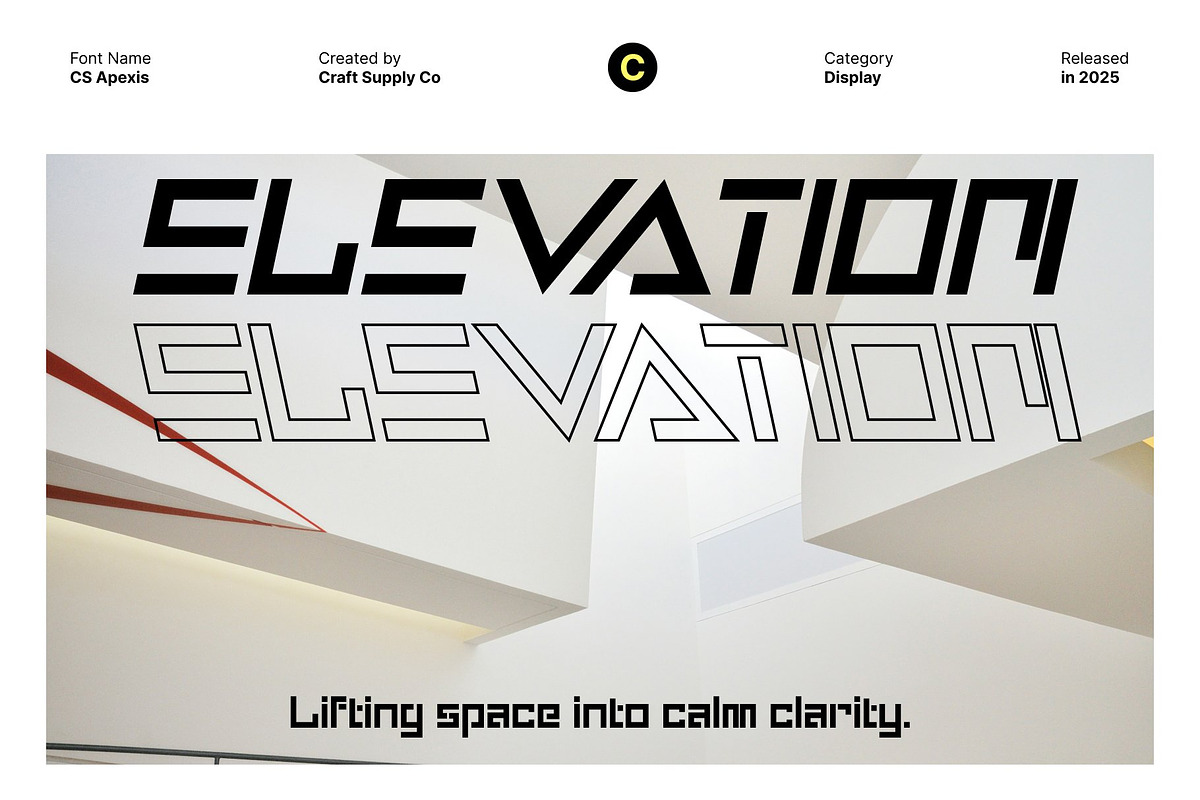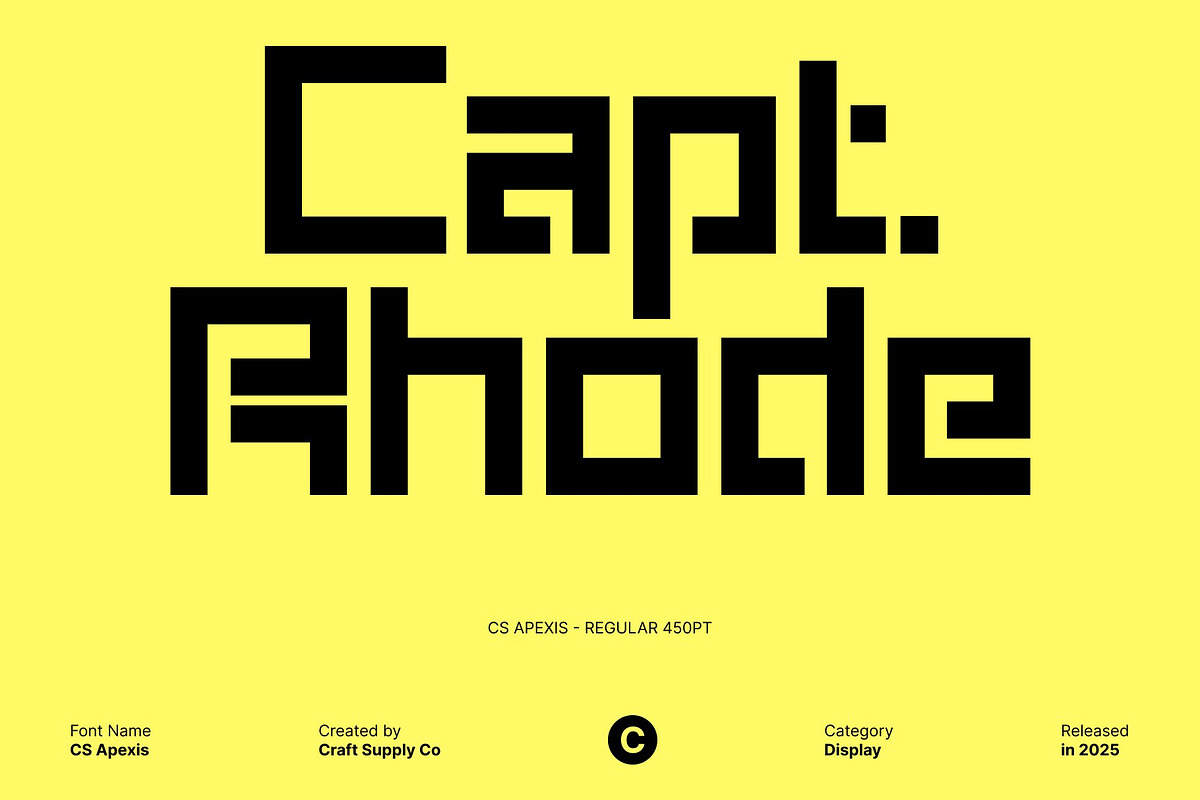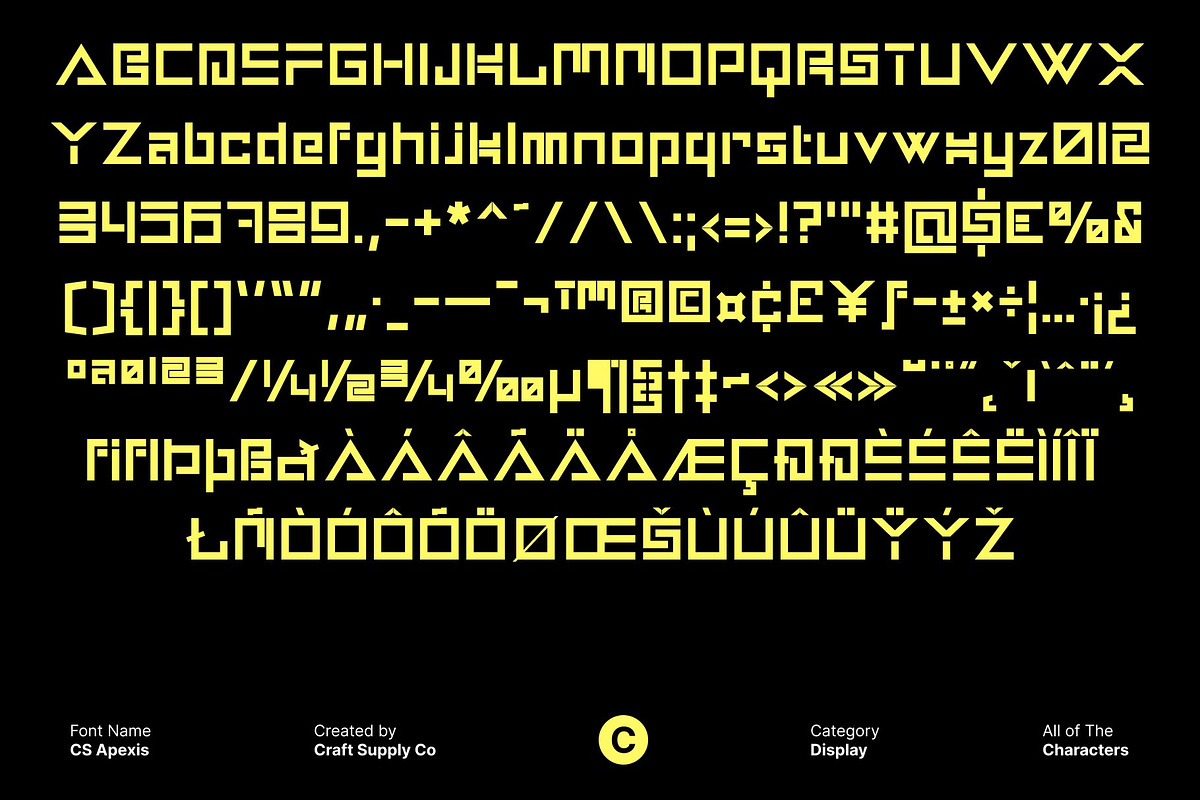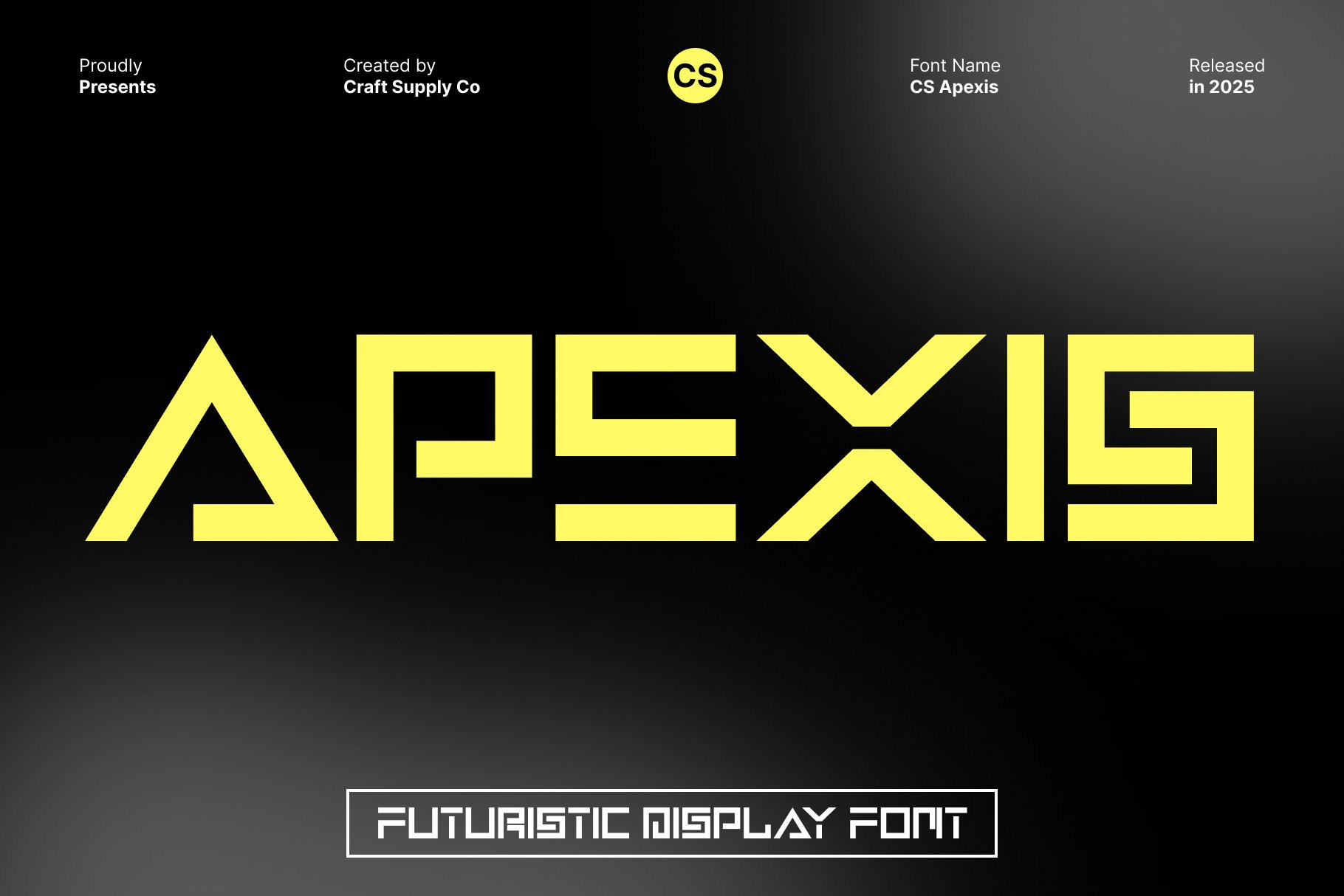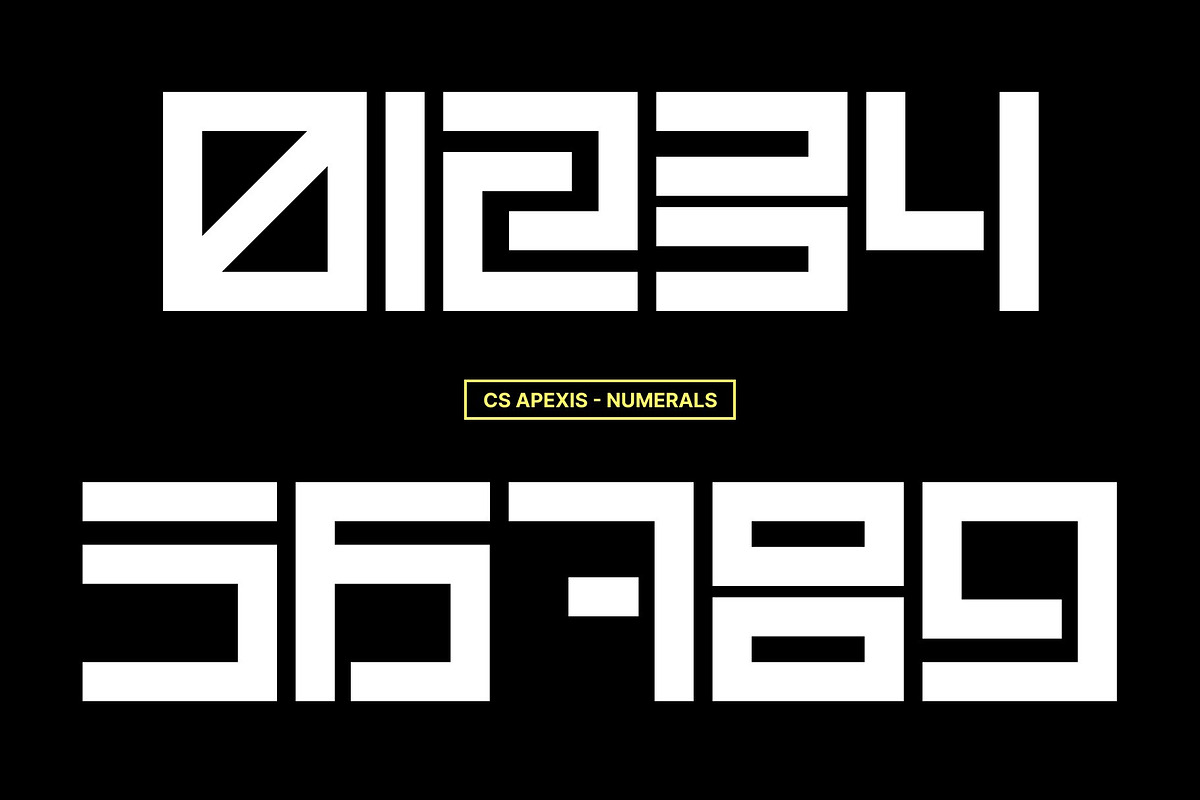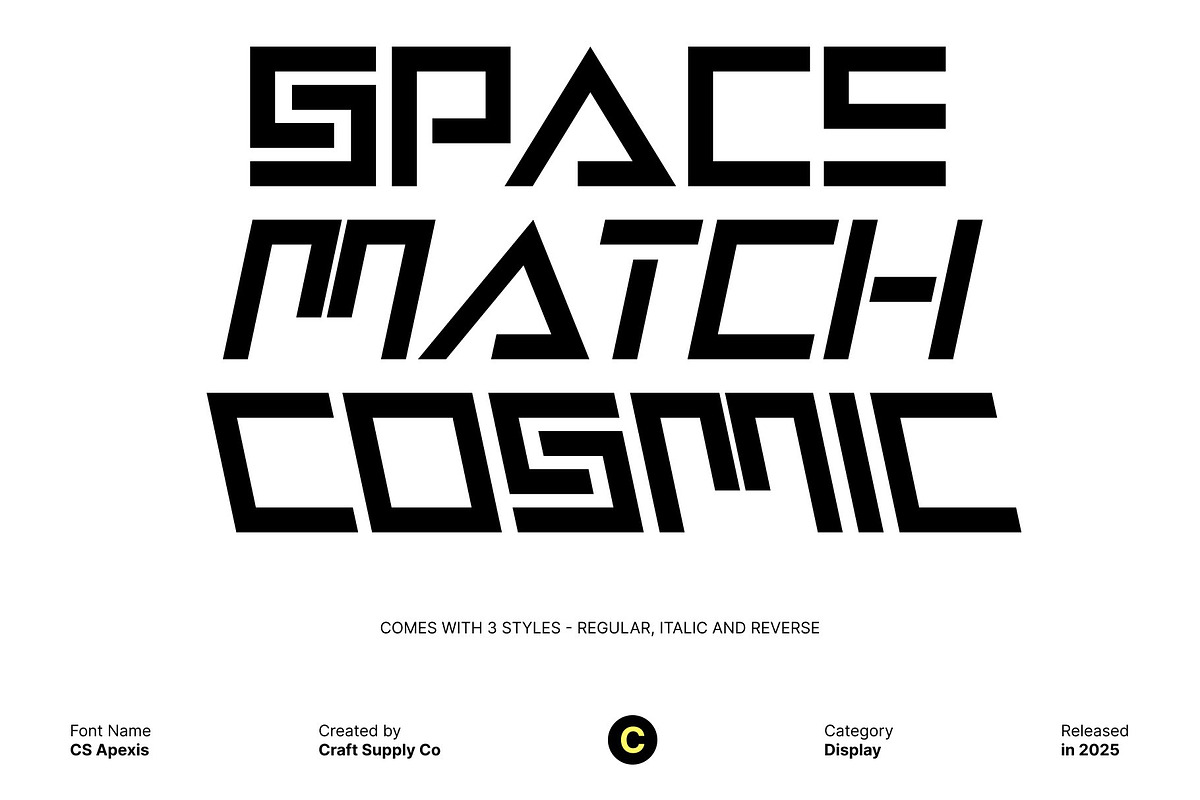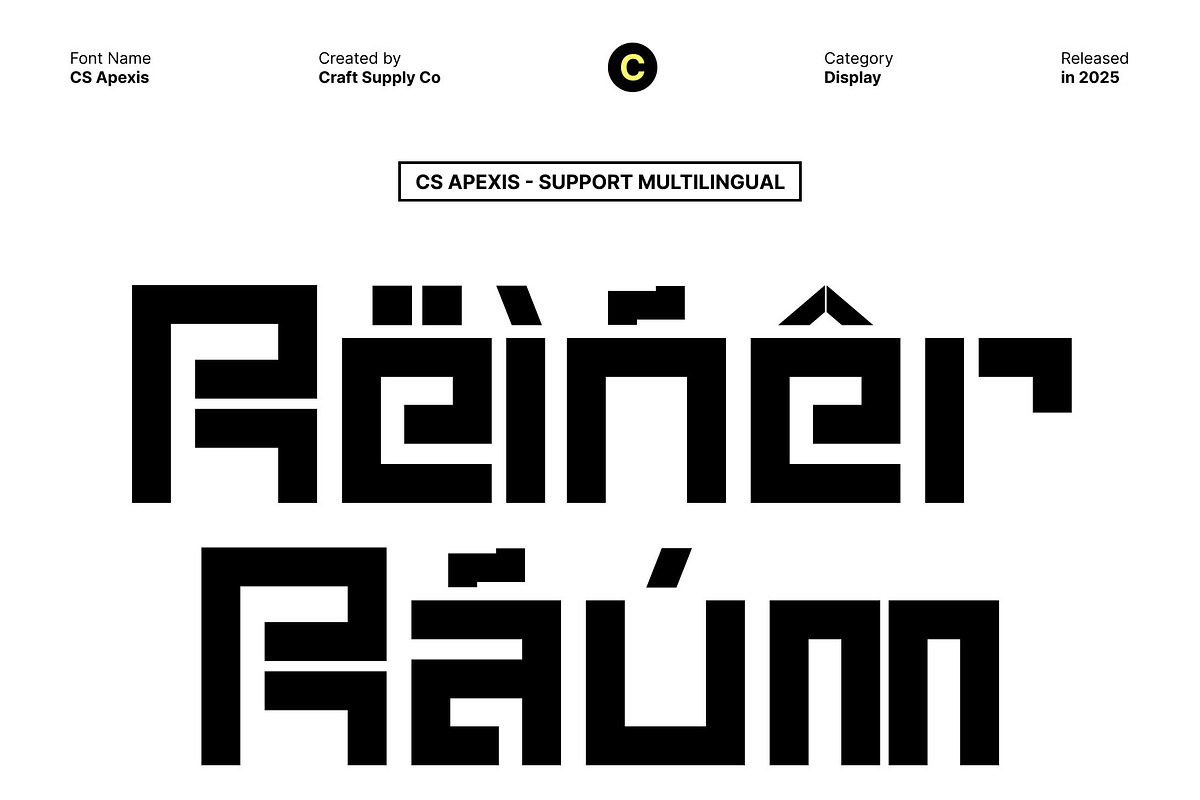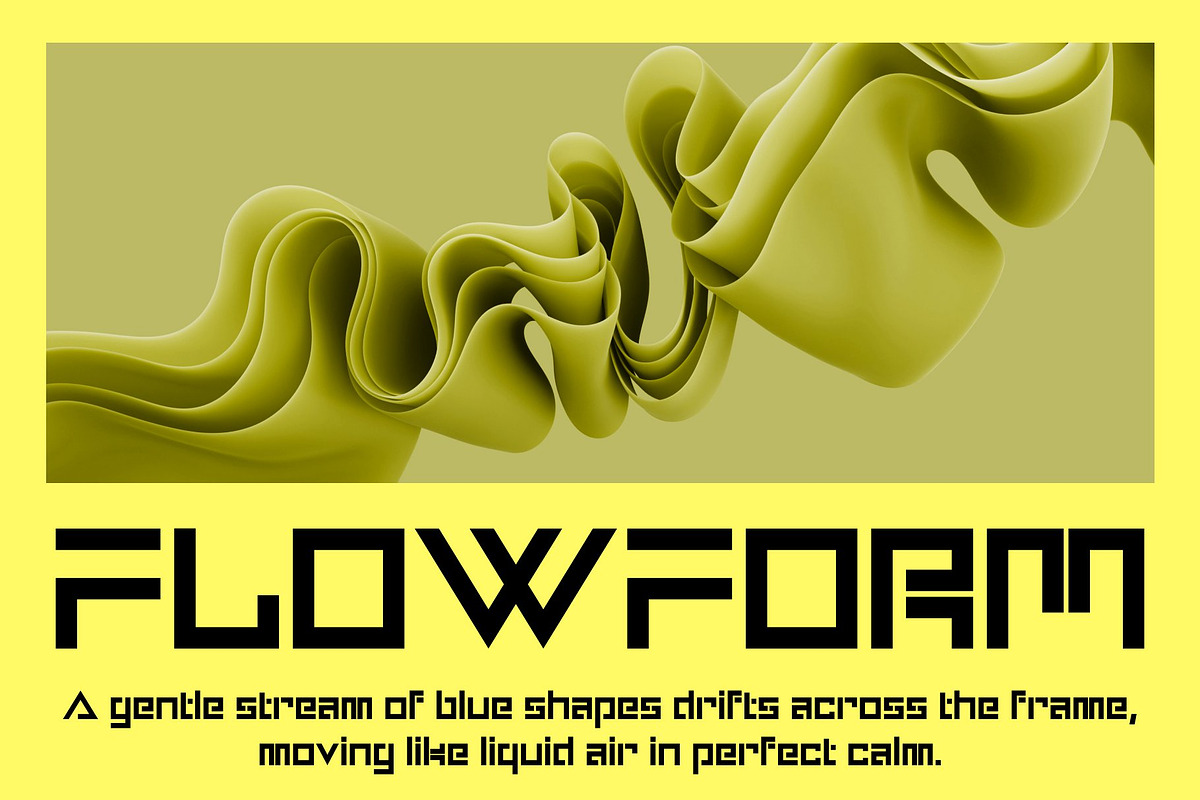
CS Apexis – Futuristic Display Font
CS Apexis – Futuristic Techno Font: Industrial Power Meets Modern Precision
Modern Techno Display Font This is a futuristic display font rooted in industrial brutalism and modern techno aesthetics. Designed with clean lines and sharp structures, this typeface delivers a bold, forward-looking appearance that instantly elevates contemporary design projects. Its strong construction and modern attitude make a powerful visual tool for designers who want their work to feel innovative, technical, and uncompromising.
Industrial Brutalist Structure Inspired by brutalist design principles, features solid forms, rigid geometry, and an unapologetically industrial character. The letterforms feel mechanical and structured, reflecting strength, stability, and raw functionality. This industrial influence gives the font a commanding presence, allowing it to dominate layouts while maintaining a clean and controlled visual rhythm.
Clean Lines with Futuristic Energy Precision is at the core of this font. Its clean lines and well-defined edges create a sleek, futuristic impression that feels both modern and efficient. The absence of unnecessary ornamentation enhances clarity and legibility, while reinforcing a high-tech mood.
Designed to Push Creative Boundaries This font is built for projects that aim to stand out and push creative limits. Perfect for technology branding, sci-fi visuals, gaming titles, posters, digital interfaces, and experimental layouts, this font adds a new dimension of depth and innovation to any design. With its industrial strength and modern techno spirit, transforms typography into a bold statement of the future.